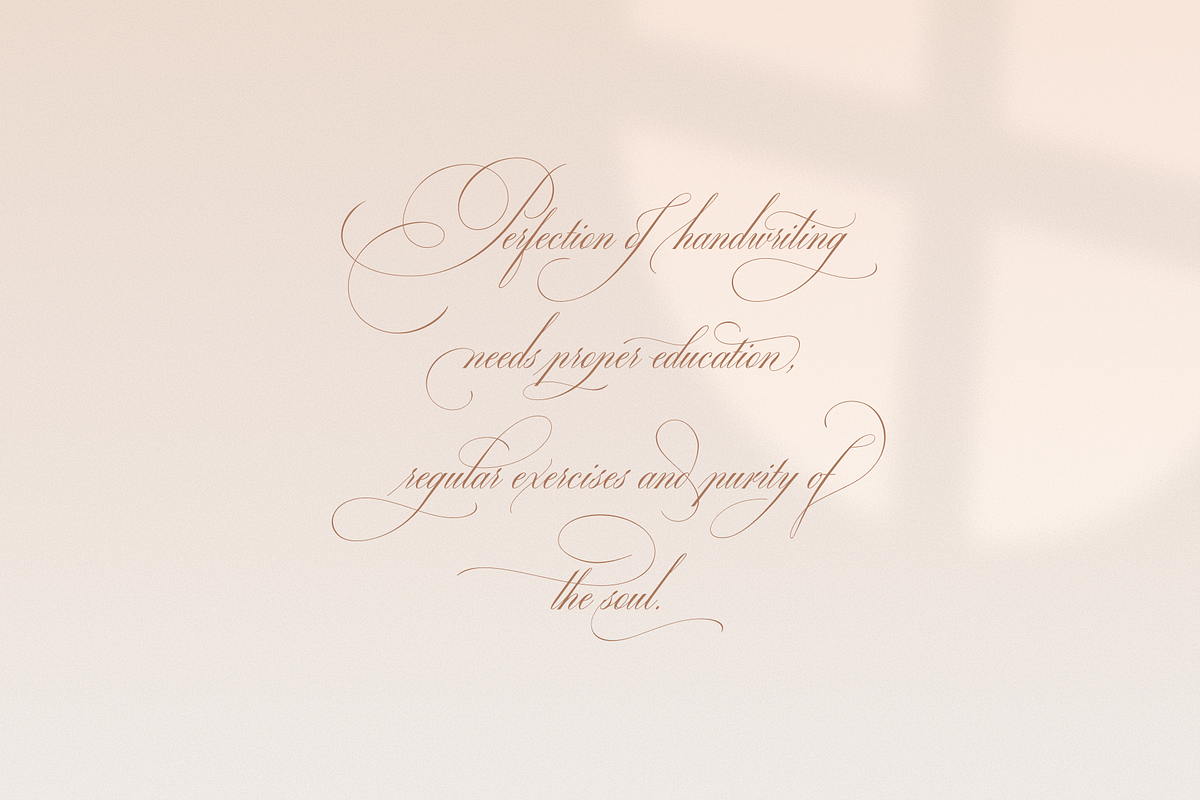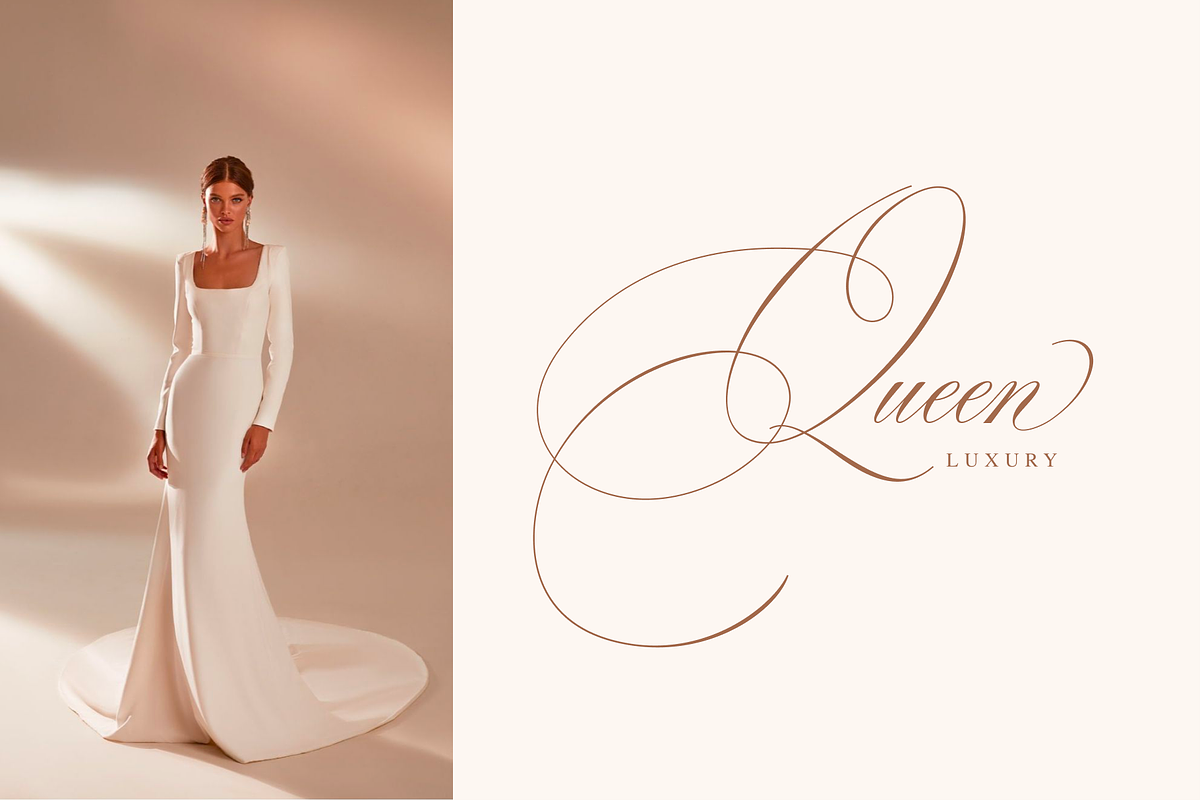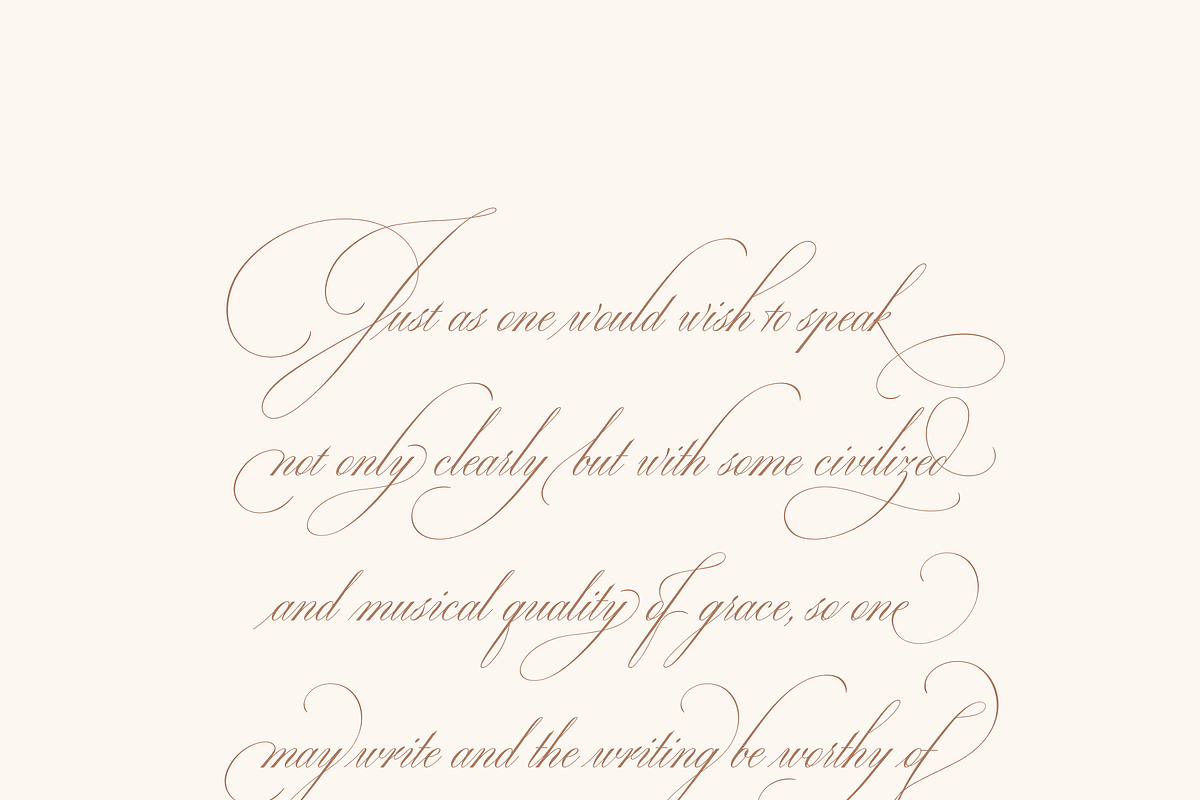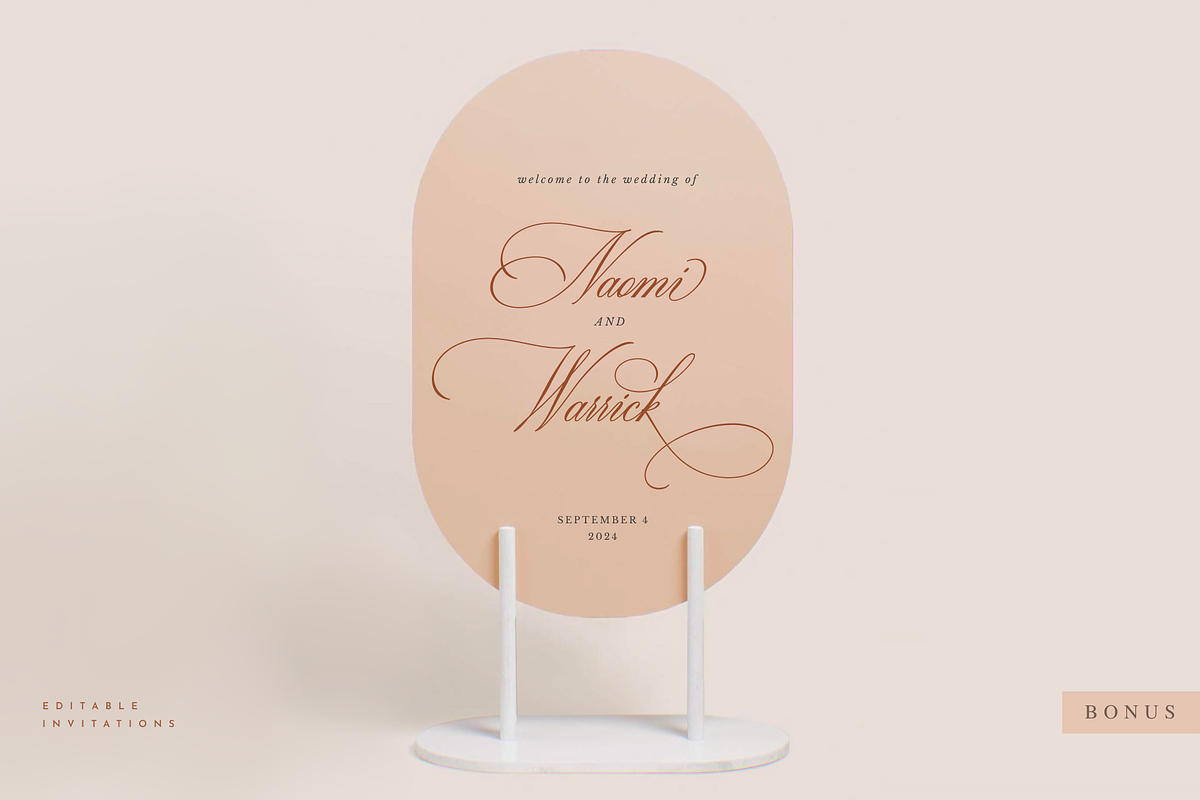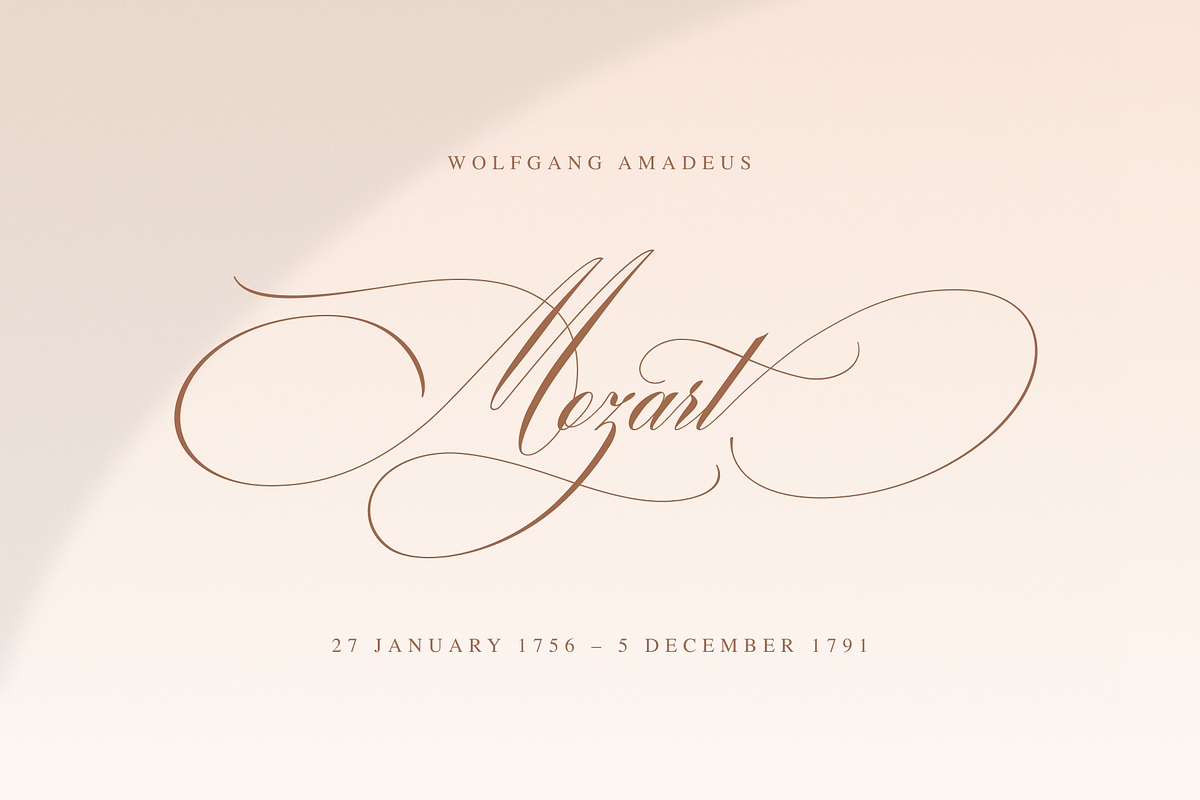
Ecatherina is a legendary script font. Ecatherina script is an opentype font-family (15 fonts: 5 styles for 3 line thickness) with bonus (editable wedding invitations, menu, quotes, letters, and more).